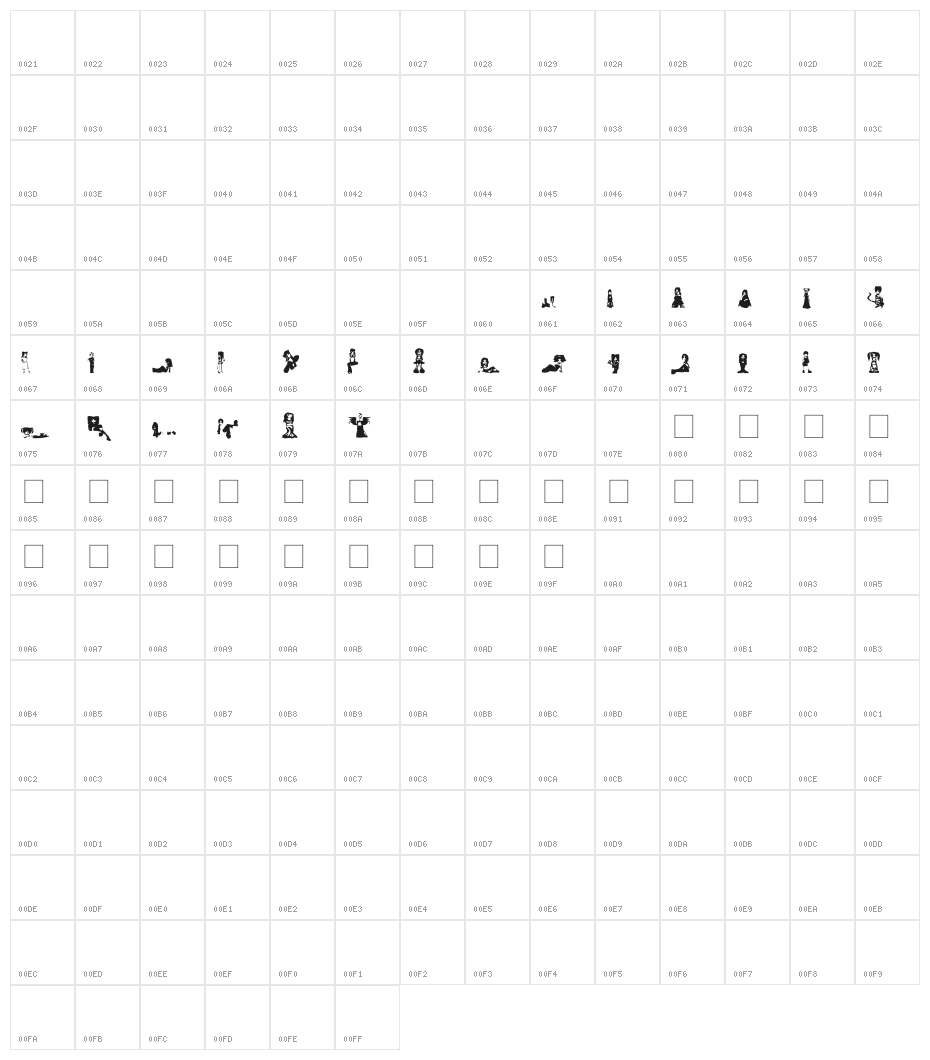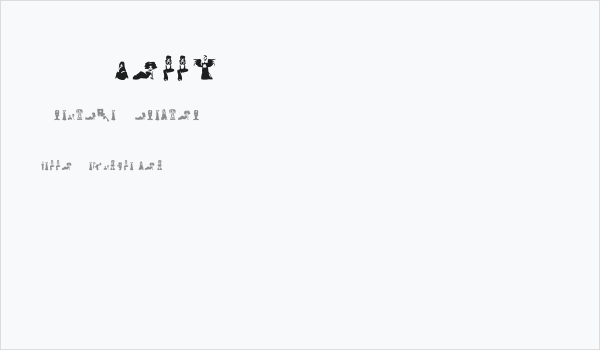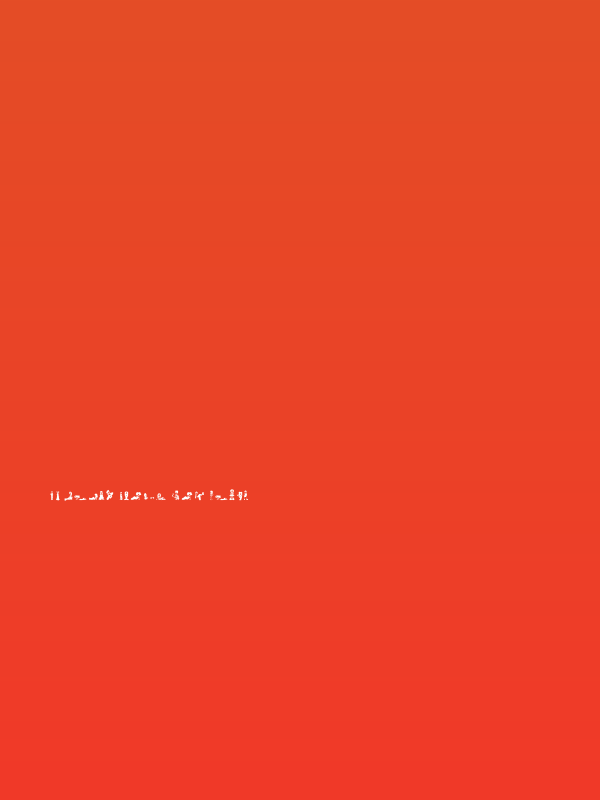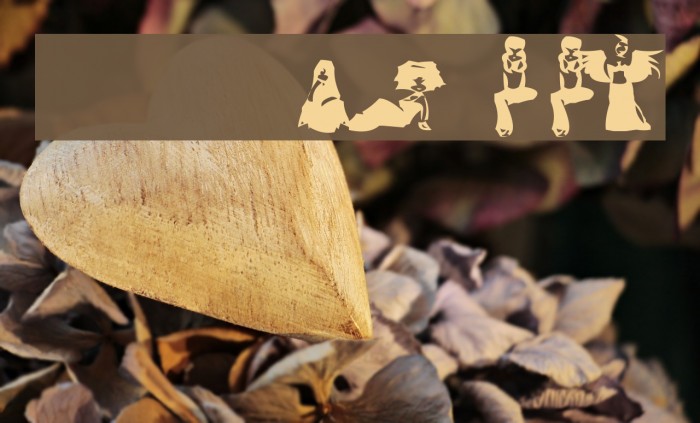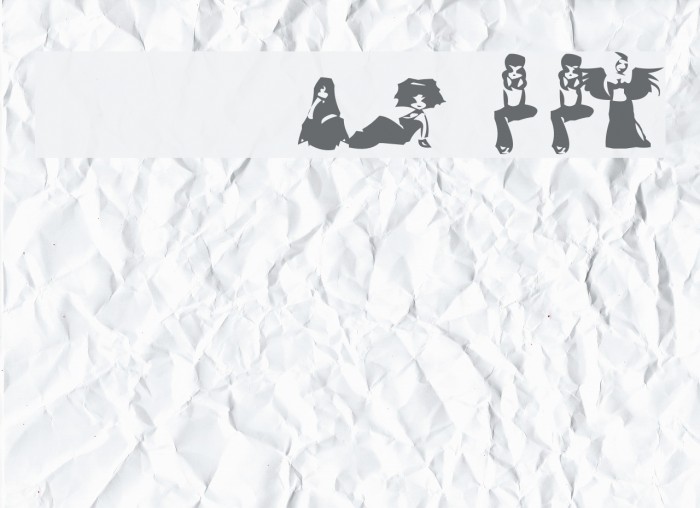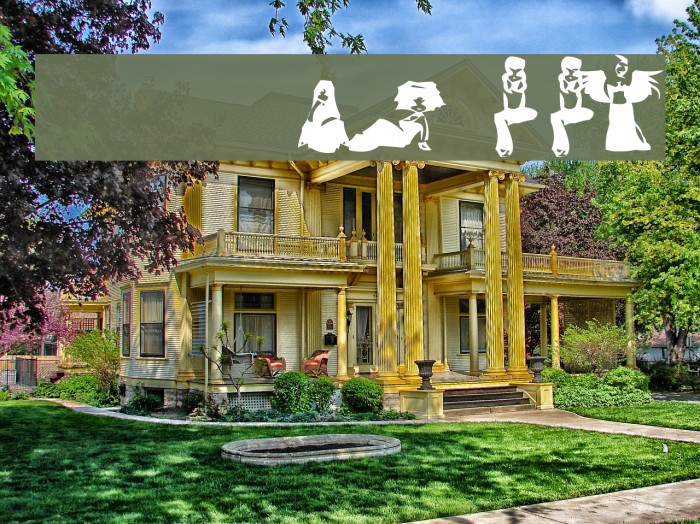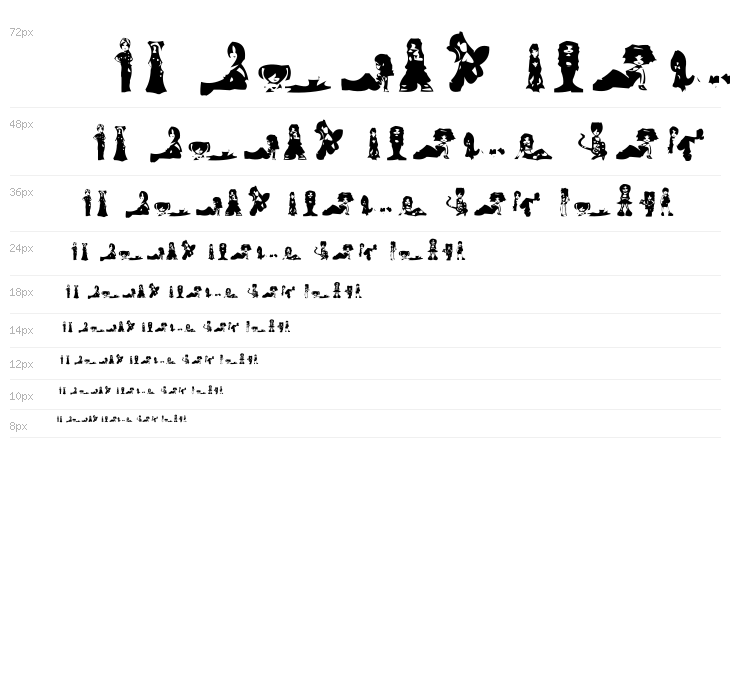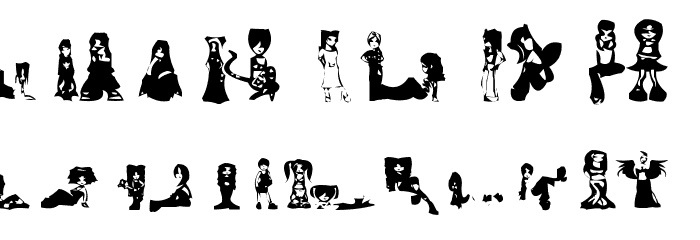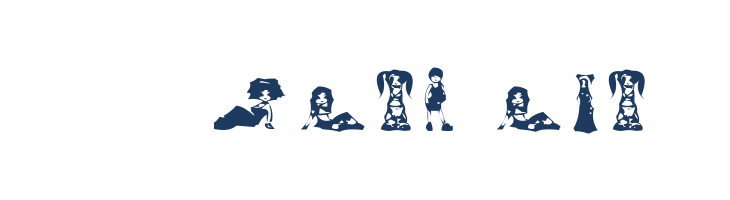
AEZdollz Font
AEZdollz Description
This font is a highly decorative and playful typeface where each character is represented by a unique, stylized doll figure. The characters are whimsical and detailed, with each letter taking on a different persona, complete with distinct outfits and poses. This font is not designed for readability in traditional text but rather for creative and artistic projects where visual impact is prioritized. The figures are bold and eye-catching, making them suitable for projects that require a fun and imaginative touch.
| Use Case | Logos, Posters, Creative Invitations |
| Proposed Projects | Ideal for children's book covers, playful posters, creative invitations, and any project that benefits from a whimsical and artistic flair. |